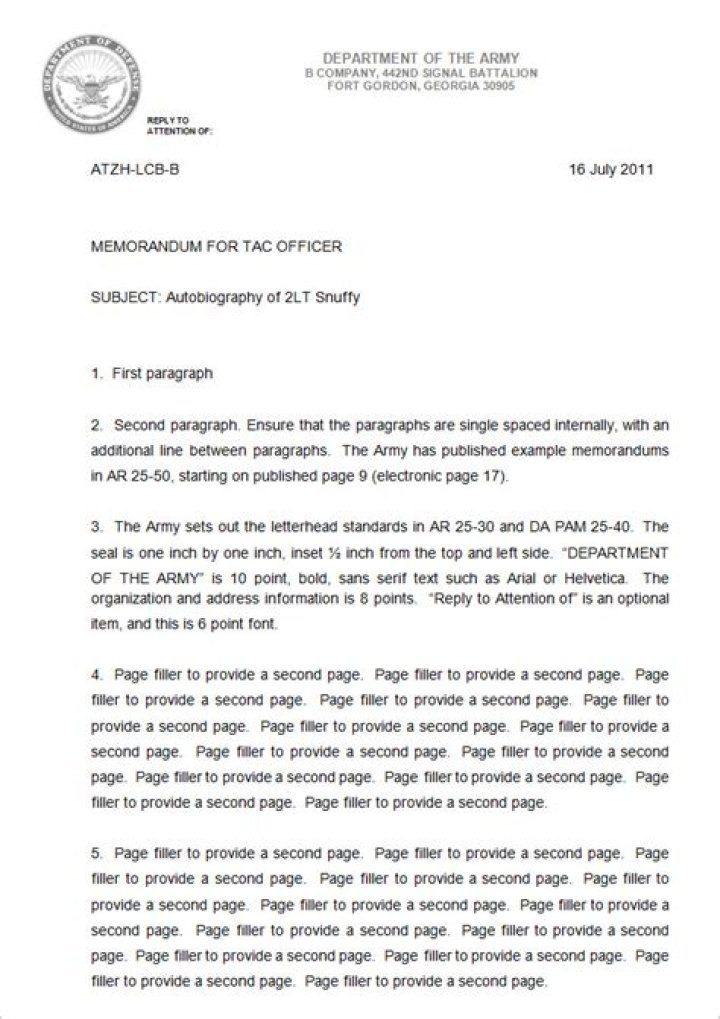
What font do Army memos use?
The template has the seal of the Army and the appropriate 12-point Times Roman font setting. Once you have completed the heading, save the file to your hard drive as is. Change your font to non-bold lowercase 12-point Times Roman font, and make sure your text is right justified.
What is a good military font?
The Best 10 Military Fonts Compared
| Font Name | Style | Rating |
|---|---|---|
| The Old Navy | Stencil | 7.5/10 |
| Military Scribe | Script | 9/10 |
| The First Division | Sans Serif | 8/10 |
| Gorilla | Block | 7.5/10 |
What ar covers Army memorandums?
(AR) 25-50 Preparing
The Army Regulation (AR) 25-50 Preparing and Managing Correspondence is the United States Army’s administrative regulation that “establishes three forms of correspondence authorized for use within the Army: a letter, a memorandum, and a message.”
What font is US Air Force use?
In all applications, no matter what the color, the correct font for “U.S. AIR FORCE” when used with the Symbol is “Berthold Akzidenz Grotesk bold extended.” If “Berthold Akzidenz Grotesk bold extended” is not available use “Arial Black bold uppercase.”
What font is used on US Navy ships?
Times New Roman (Regular) The building bricks used are the typefaces and the mortar is the space used for composition.
What is the AR for Army writing?
The Army Regulation (AR) 25-50 Preparing and Managing Correspondence is the United States Army’s administrative regulation that “establishes three forms of correspondence authorized for use within the Army: a letter, a memorandum, and a message.”